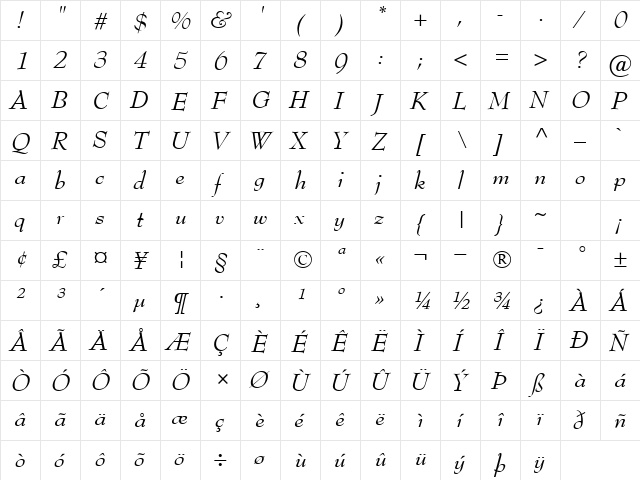
AIBernhardModern MediumItalic
Design Context for AIBernhardModern Typeface
AIBernhardModern is a composed and adaptable typeface that performs quietly and consistently across a wide range of design contexts. Its italic angle brings a sense of urgency and motion to the letterforms.